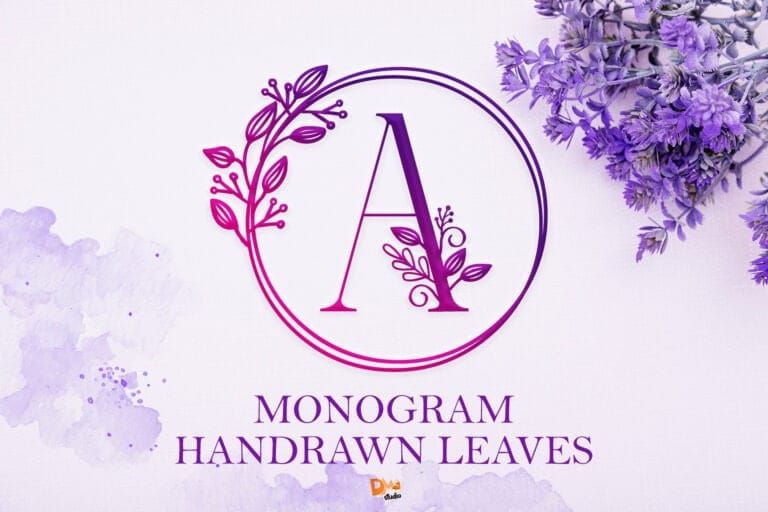
Monogram Handrawn Leaves
Introducing this sweet, lovely Monogram Handdrawn leaves font from our store!
Fall in love with its romantic touch to create some gorgeous designs, for your special occasions, for your business stuffs, logo, branding, merch, social media posts, and wedding cards.
Features : -1 Style (A to Z)
PS : The letters are exclusively made for our monogram fonts.